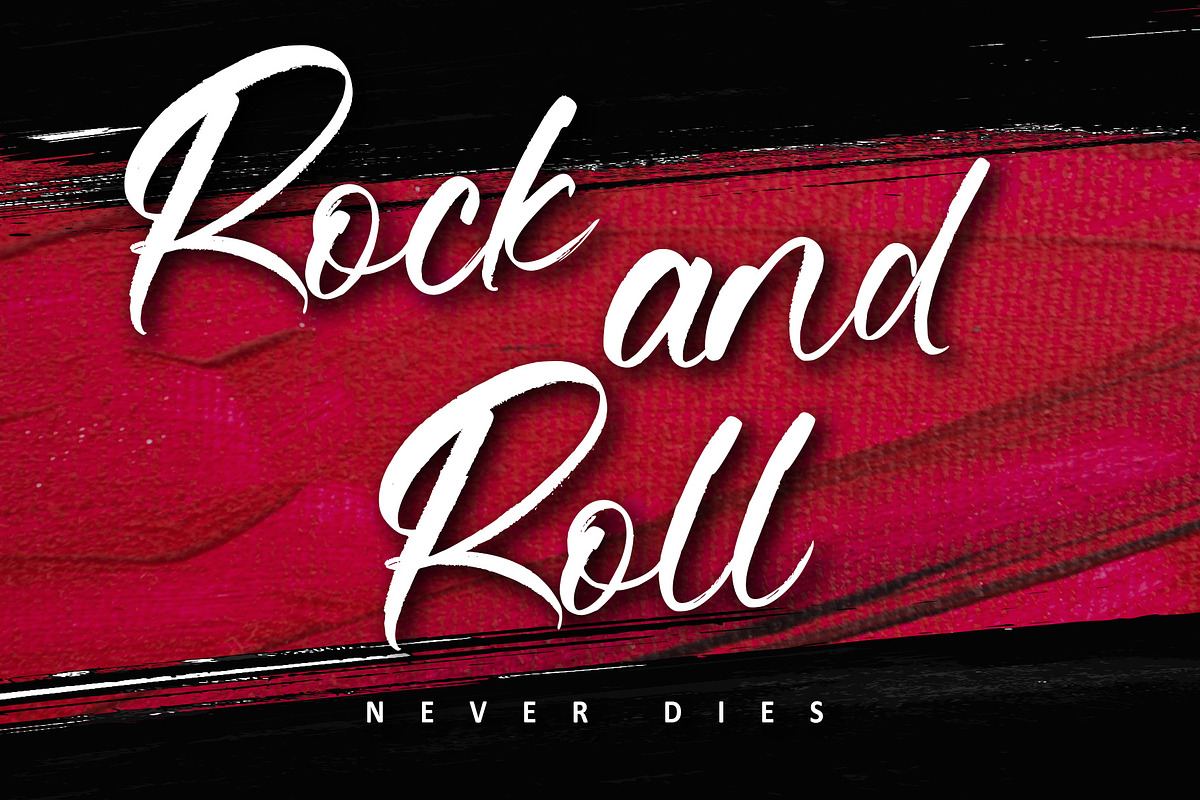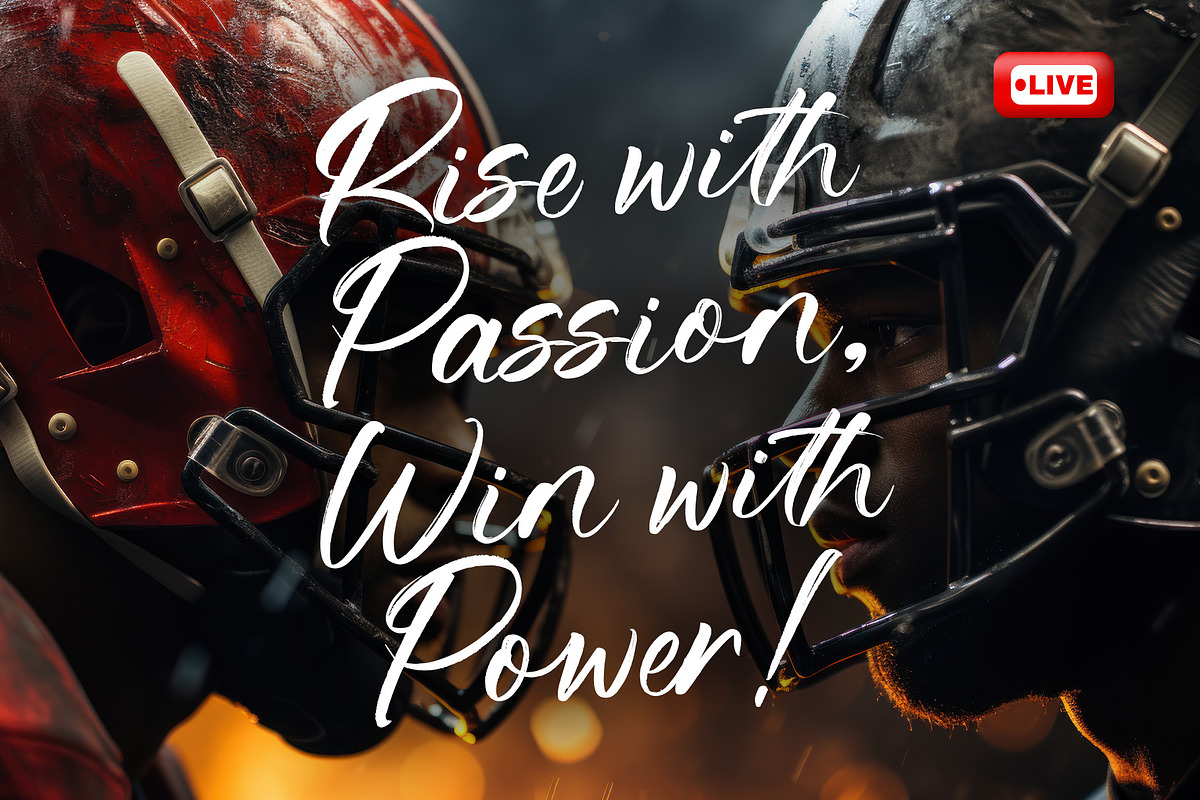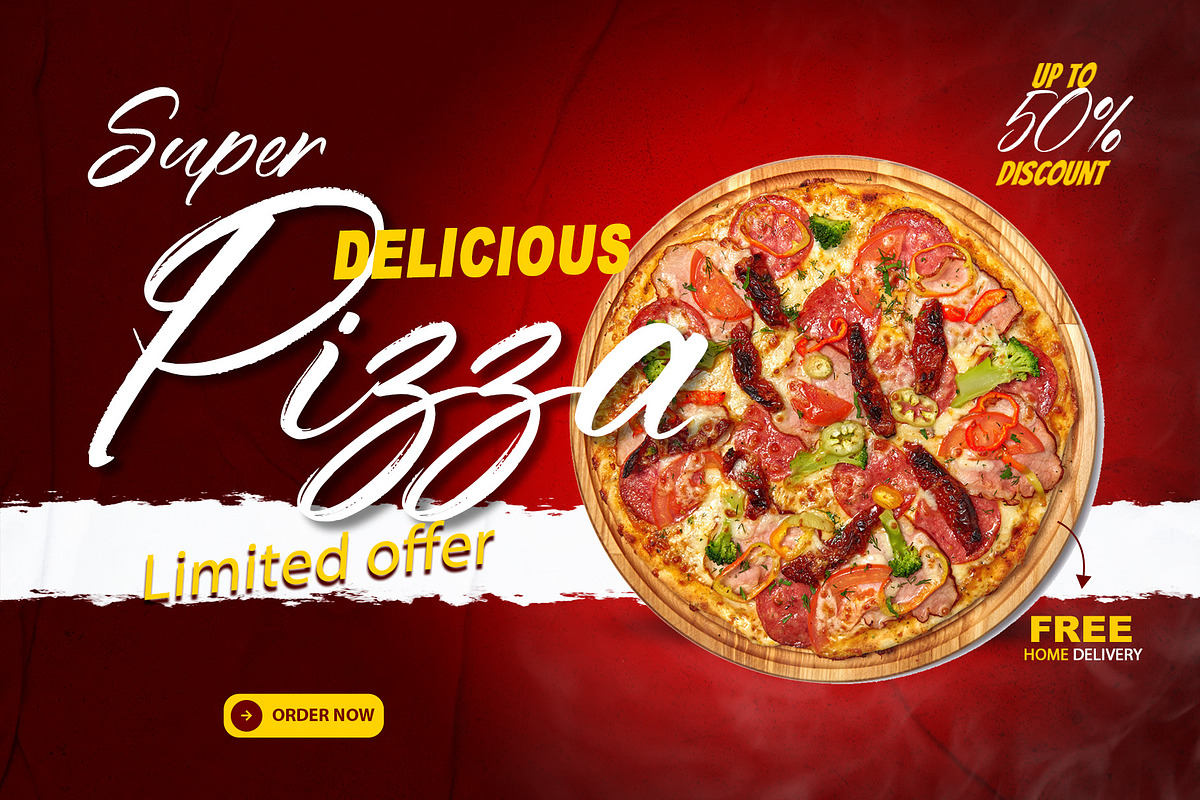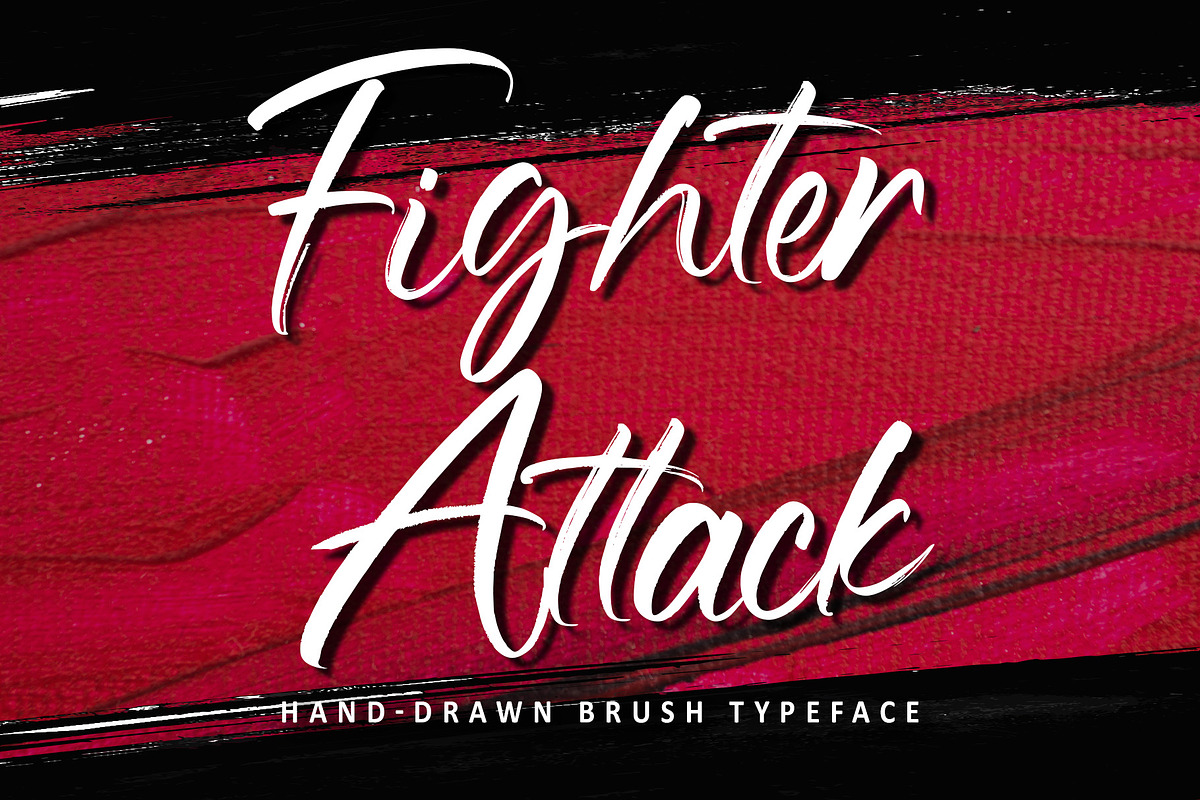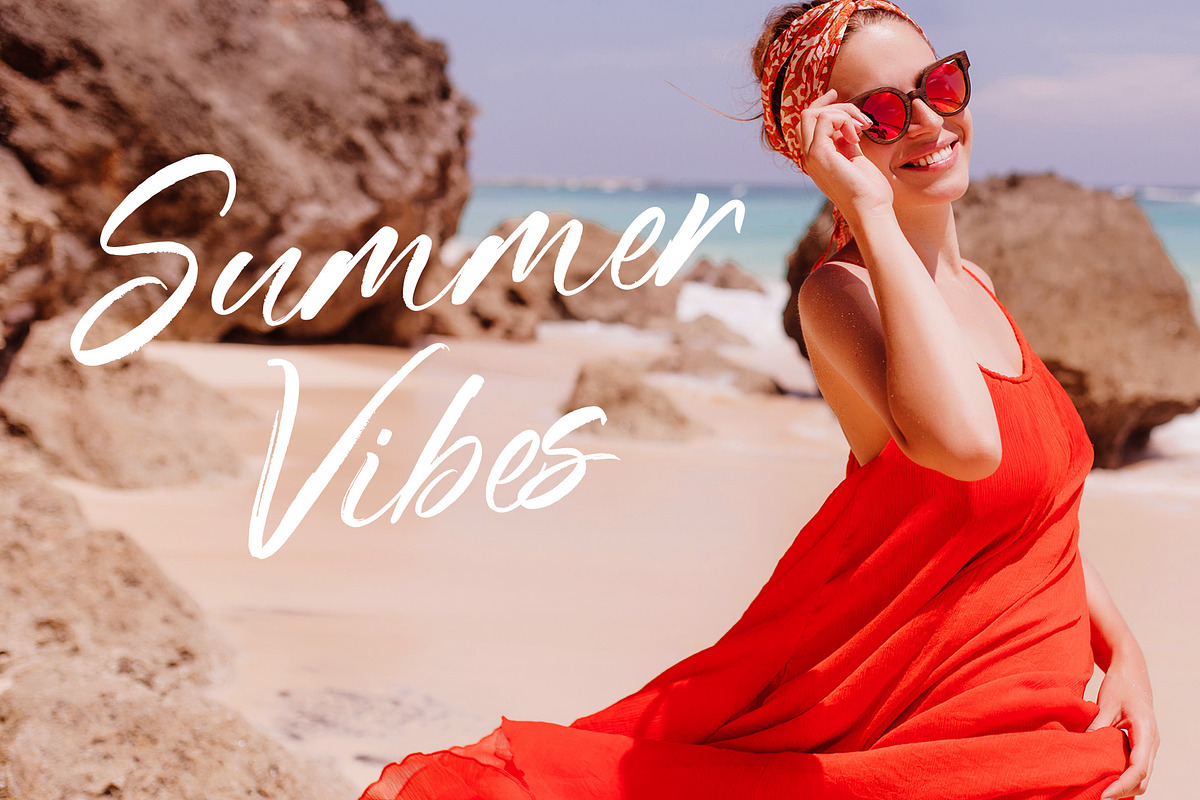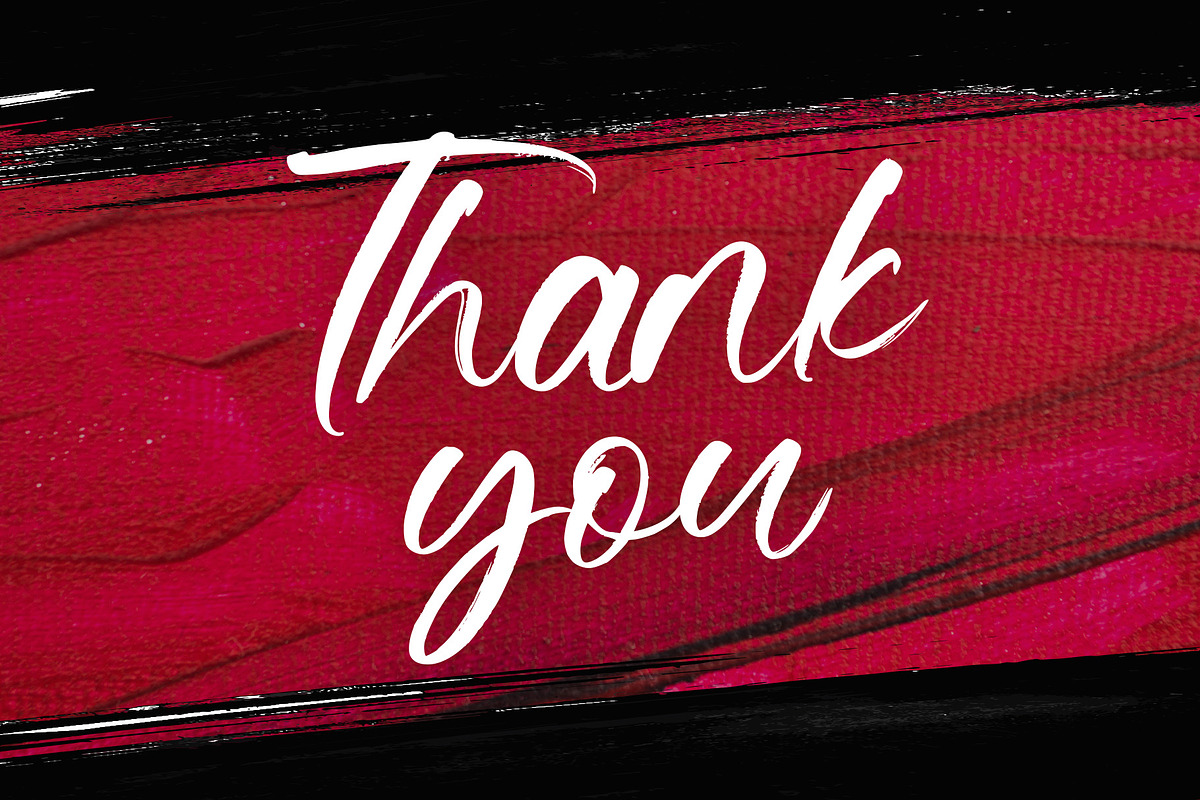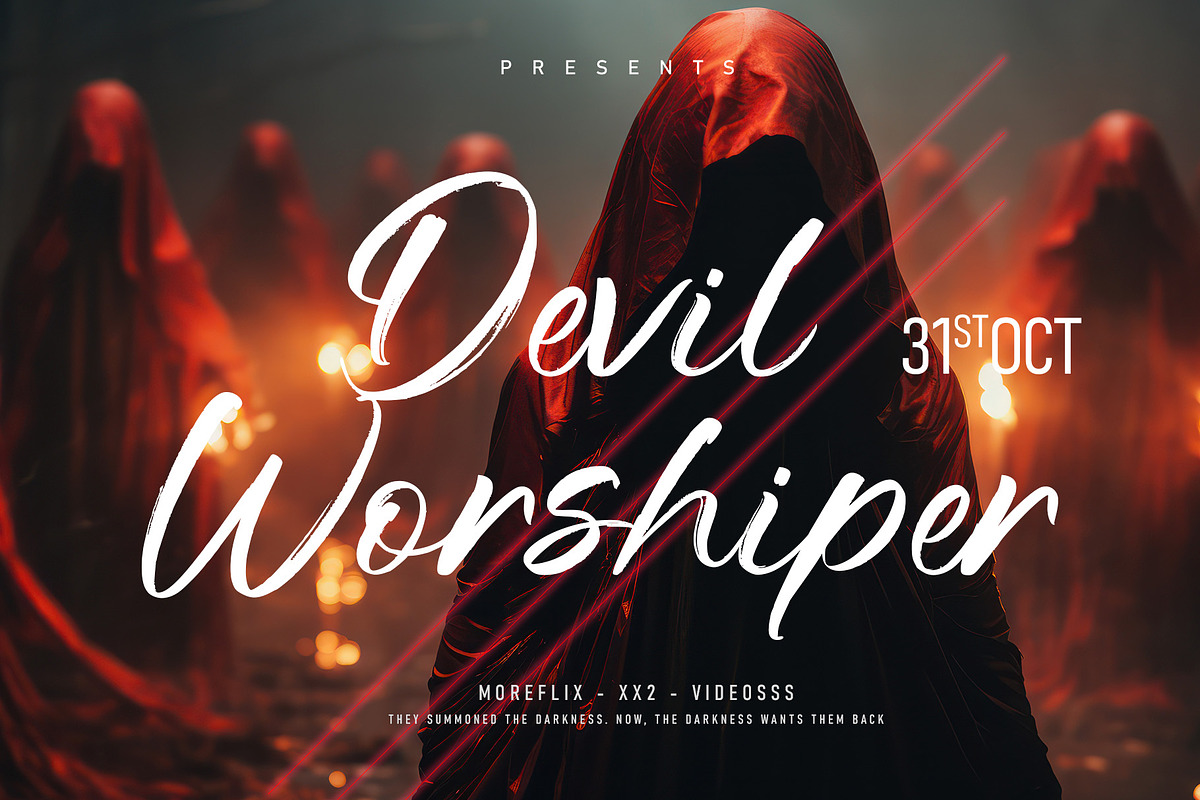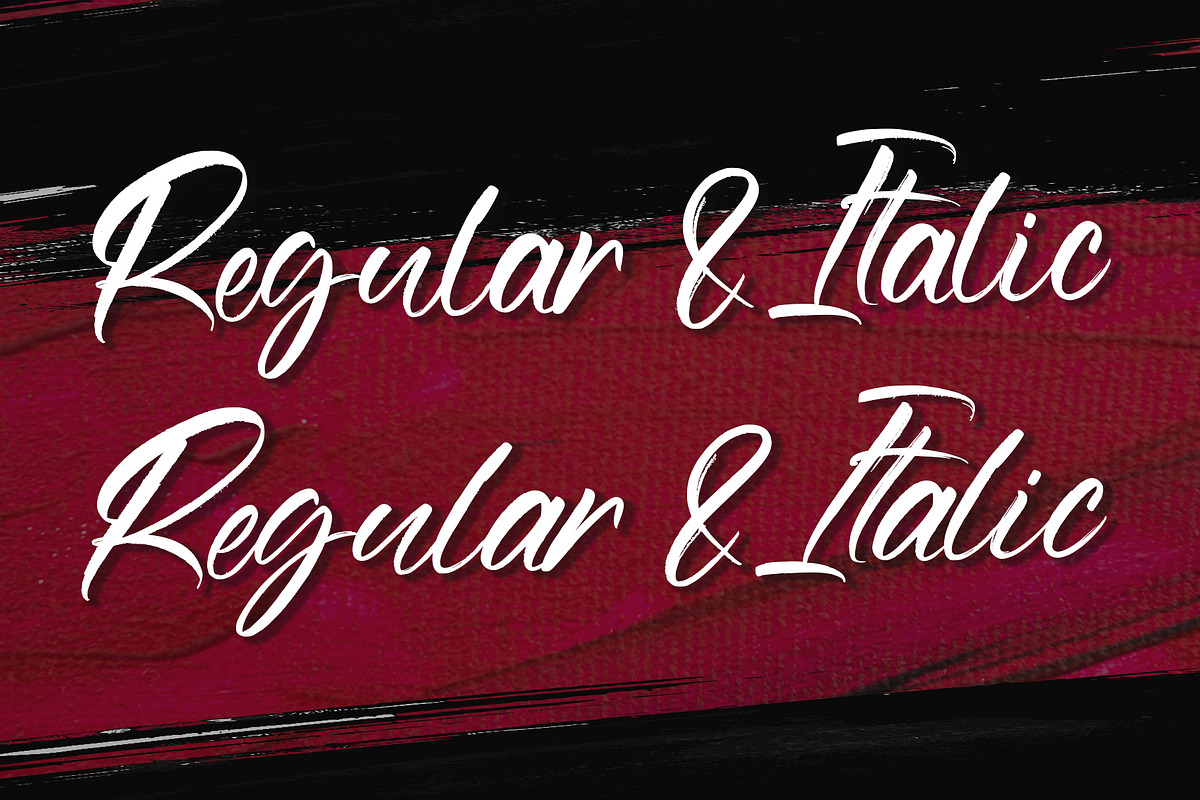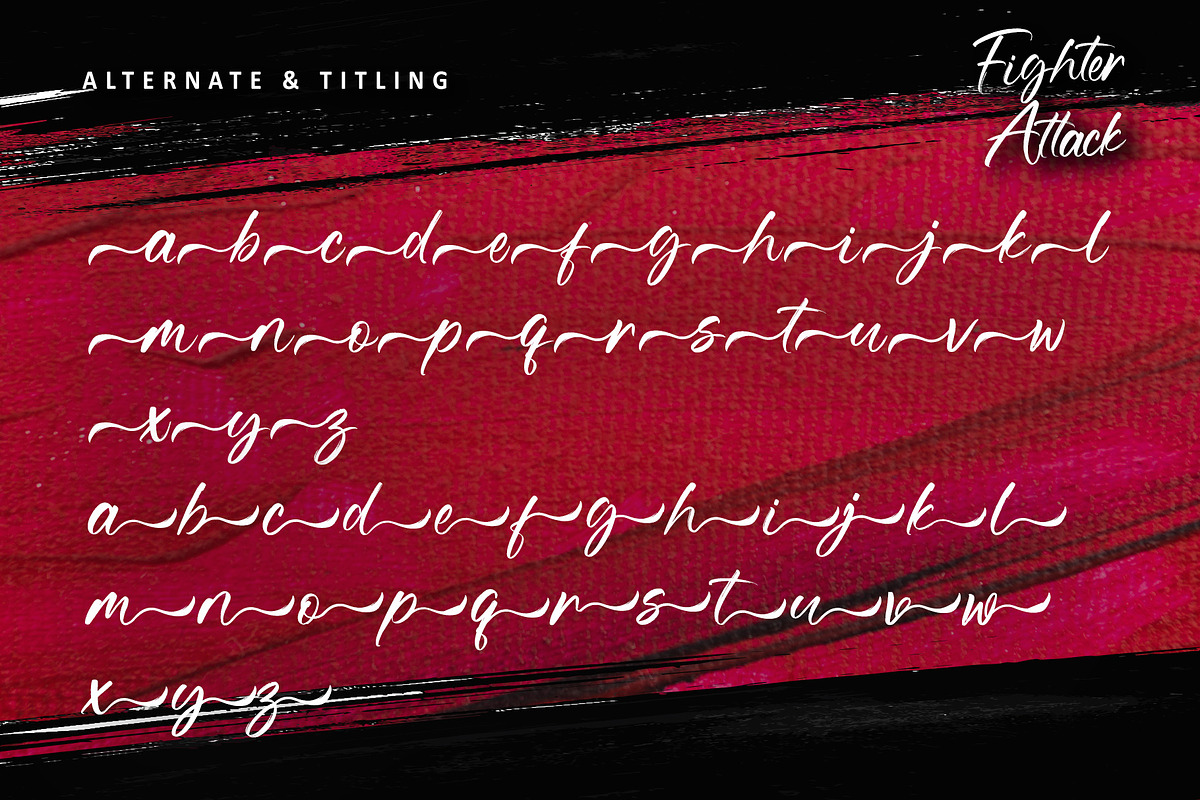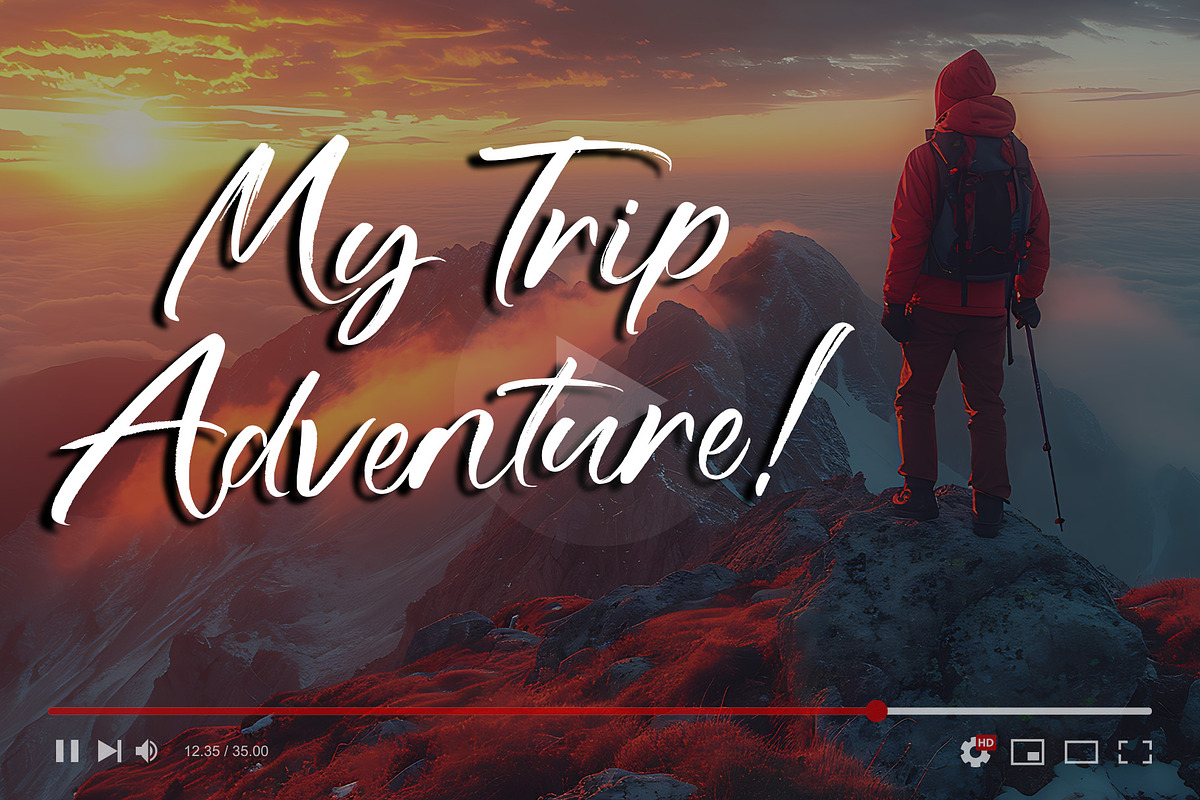
Fighter Attack
Introducing Fighter Attack — a raw and fearless handwritten brush font that strikes with unstoppable energy. Each letter is crafted with fierce, natural motion, delivering rugged texture and untamed spirit to your designs. Perfect for bold logos, gritty posters, streetwear branding, and anything that demands power and presence, Fighter Attack unleashes pure adrenaline on the page. Its wild strokes, dynamic alternates, and full PUA encoding give you limitless freedom to create designs that roar with strength, rebellion, and undeniable attitude. Ready to dominate the scene? Fighter Attack is your ultimate weapon.
- Support multilingual; ä ö ü Ä Ö Ü ß ¿ ¡
- lowercase and uppercase letters
- Alternate, titling & Ligature